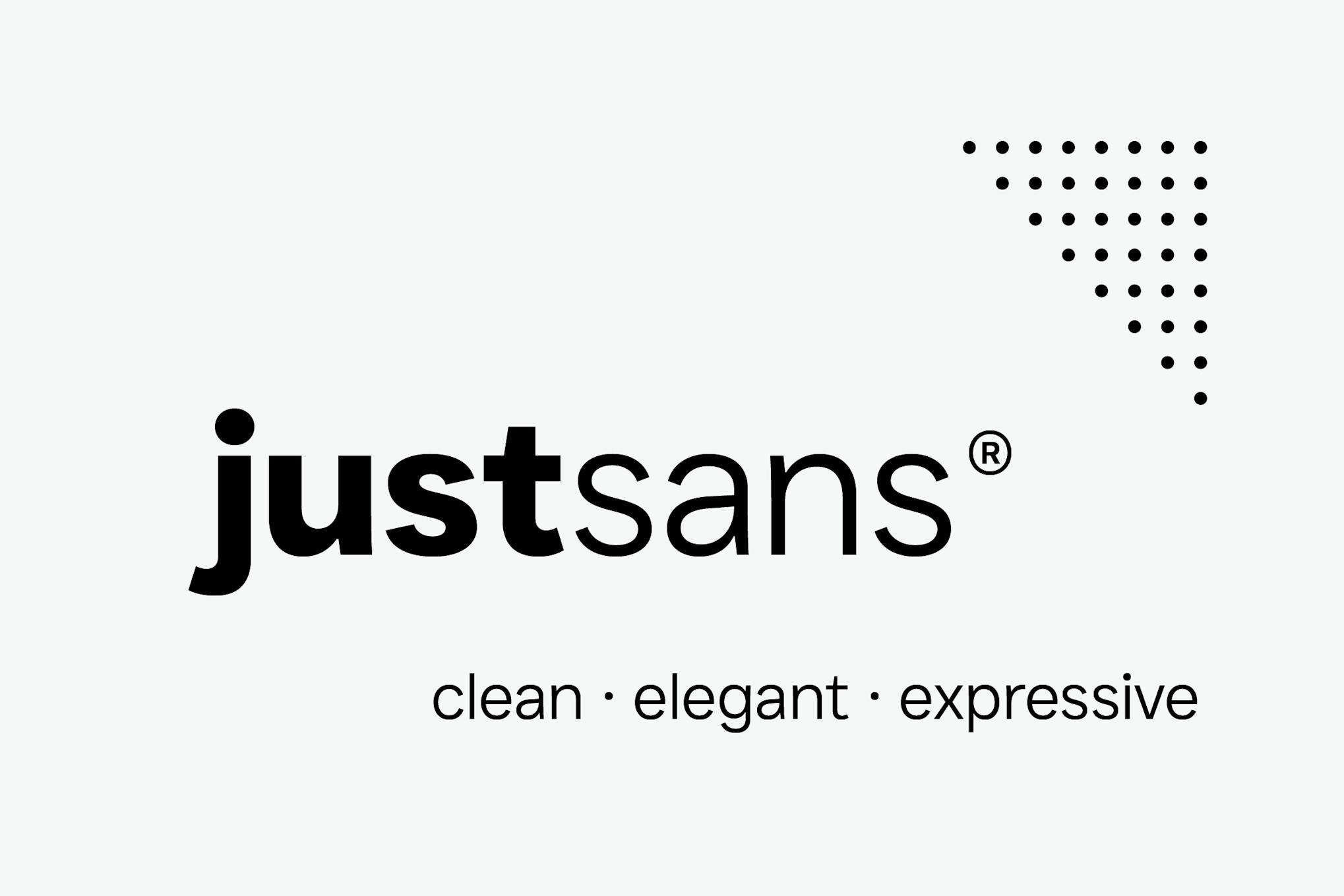
JUST Sans Clean Modern Minimal Geometric Typeface
JUST Sans Clean Modern Minimal Geometric Typeface excels in contemporary tech startup branding, minimalist app interfaces, clean corporate identities, modern architectural presentations, streamlined web designs, geometric logo systems, progressive marketing campaigns, sleek product packaging, contemporary fashion branding, digital design studios, modern art galleries, and sophisticated business communications where geometric precision and minimal aesthetics create effortlessly elegant solutions.
This exceptional typeface generates excitement through its perfect embodiment of contemporary design philosophy and geometric minimalism that creates typography with uncompromising clarity and modern sophistication. JUST Sans Clean Modern Minimal Geometric Typeface represents the pinnacle of reductive design thinking with its mathematically precise letterforms that eliminate unnecessary ornamentation while maximizing functional beauty. The font's sophisticated design approach incorporates golden ratio proportions, perfect geometric relationships, and optical precision that create typography that feels both timeless and cutting-edge. Its distinctive character reflects the honesty, efficiency, and aesthetic purity that define exceptional contemporary design and minimalist visual communication.
The JUST Sans Clean Modern Minimal Geometric Typeface family encompasses comprehensive minimalist variations including Thin, Light, Regular, Medium, Semi-Bold, Bold, and Heavy weights, each maintaining perfect geometric consistency while offering extensive typographic flexibility. The collection features mathematically precise character constructions, optimized spacing systems, and clean geometric elements that enhance its minimal aesthetic. Advanced typography features include multiple figure styles, extensive language support, and precision-engineered kerning that meets the demanding requirements of contemporary professional design applications.
Contemporary designers and minimalist brand strategists consistently choose JUST Sans Clean Modern Minimal Geometric Typeface Free Download for projects requiring typography that communicates sophistication through simplicity and geometric perfection. This remarkable typeface excels in applications where reducing visual noise and maximizing communication efficiency are essential for modern brand success. The font's geometric qualities make it particularly effective for technology companies, design agencies, and progressive brands targeting audiences who appreciate clean aesthetics and functional design excellence.
Whether you're designing tech company identities, creating minimalist marketing materials, developing clean user interfaces, or building contemporary brand systems, JUST Sans Clean Modern Minimal Geometric Typeface delivers unmatched geometric sophistication. Its ability to convey modernity, precision, and aesthetic purity makes it invaluable for designers seeking typography that embodies contemporary design principles. The font's minimal presence ensures your designs will communicate the clarity and sophisticated simplicity that define exceptional modern communications and geometric design excellence.